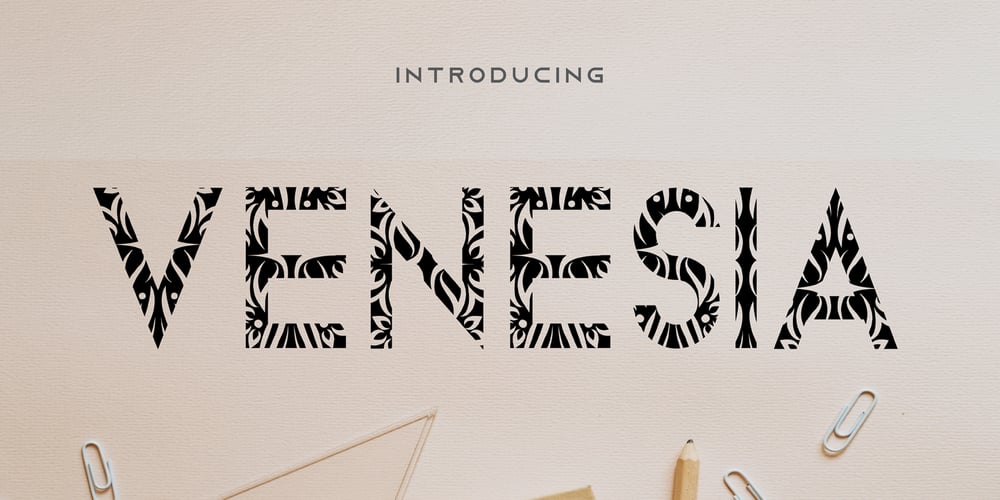
Venesia Font Family was designed by Edy Suryadi and published by Edcreative. Venesia contains 1 styles and family package options. Venesia is a beautiful and clean font with an ornamental style, perfect for use in various designs such as mugs, t-shirts, invitations, greeting cards and more